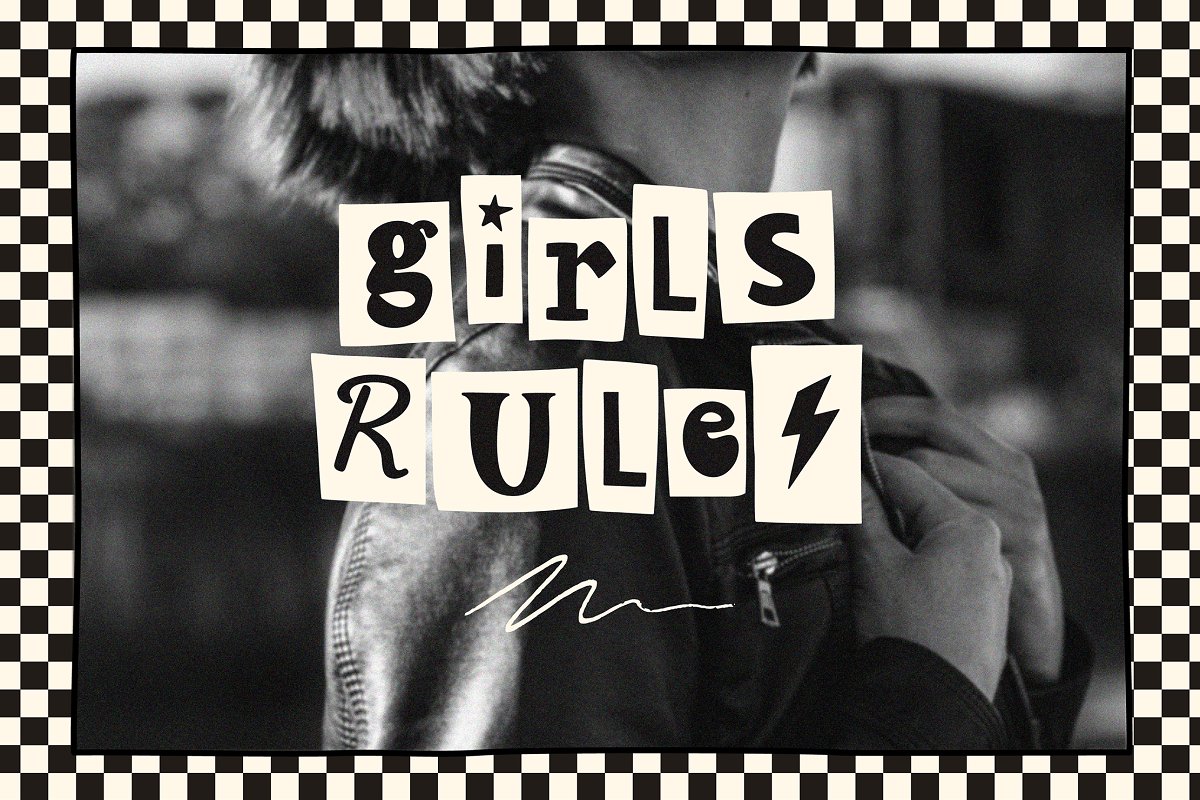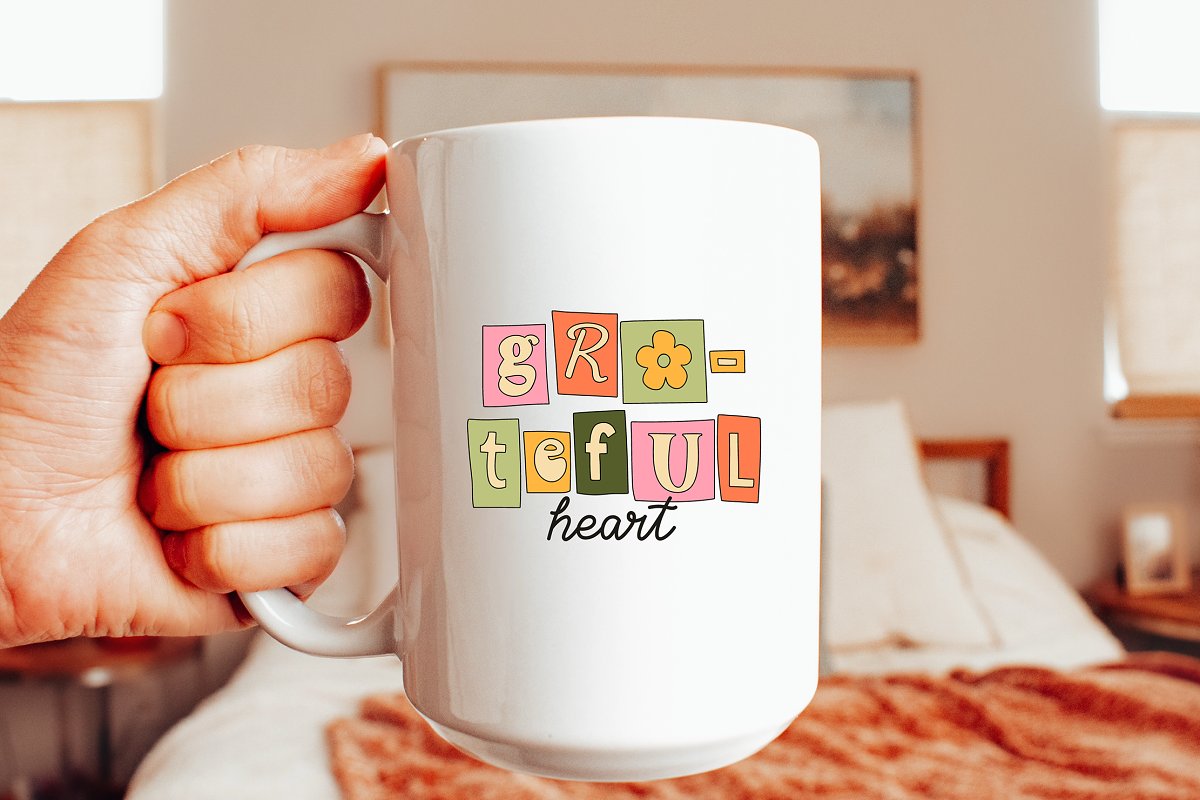
About the POSITIVE QUOTES
POSITIVE QUOTES is a cute Ransom cutout font, Be creative and create awesome products such as t-shirts, stickers, quotes, etc, 😉I have been working on this font for a little over a month, and wow! It’s finally finished, and I’m very happy with the result, I hope you like it as much as I do, ✷ This font includes:OTF font file “POSITIVE QUOTES”OTF font file “POSITIVE QUOTES INSIDE”OTF font file “POSITIVE QUOTES OUTLINE”Most accent characters included
)✷ Use the 10 symbols included to make cute compositions, Bullet symbol • – StarsPeriod centered symbol · – Small HeartBar symbol | – Lowercase “i” with a heartLeft Curly Bracket { – Happy faceRight Curly Bracket } – LightningLeft square bracket [ – Big HeartRight square bracket ] – Peace symbolLogical Not ¬ – Lowercase “i” with a starGreater – StarLess – Flower⋒ If you need the